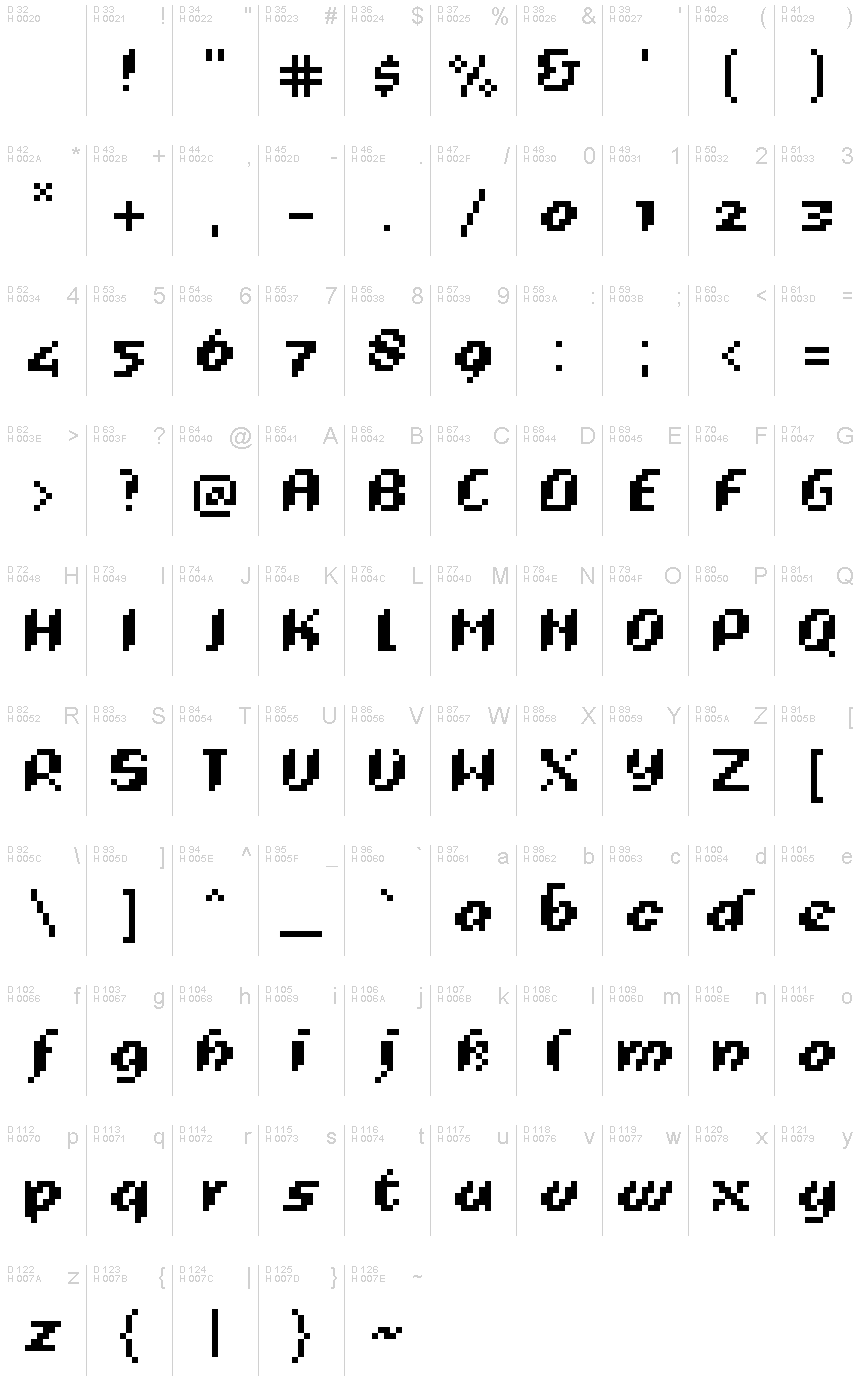
Pixelig Cursief Regular
Pixelig Cursief is a captivating bitmap font that exudes a retro-inspired, pixelated charm. With its bold, distinctive strokes and pixelated aesthetic, this font effortlessly evokes a vintage, nostalgic feel reminiscent of classic video games and 8-bit art.
Its unique, pixelated style makes it an excellent choice for a wide range of design applications, from eye-catching headlines and logos to retro-themed branding and packaging. The font's bold, pixelated nature lends itself particularly well to projects that aim to capture a sense of playfulness, whimsy, or a distinctly digital aesthetic.
Pixelig Cursief's versatility and striking visual impact make it a standout choice for designers seeking to add a touch of vintage-inspired flair to their creations.
Its unique, pixelated style makes it an excellent choice for a wide range of design applications, from eye-catching headlines and logos to retro-themed branding and packaging. The font's bold, pixelated nature lends itself particularly well to projects that aim to capture a sense of playfulness, whimsy, or a distinctly digital aesthetic.
Pixelig Cursief's versatility and striking visual impact make it a standout choice for designers seeking to add a touch of vintage-inspired flair to their creations.